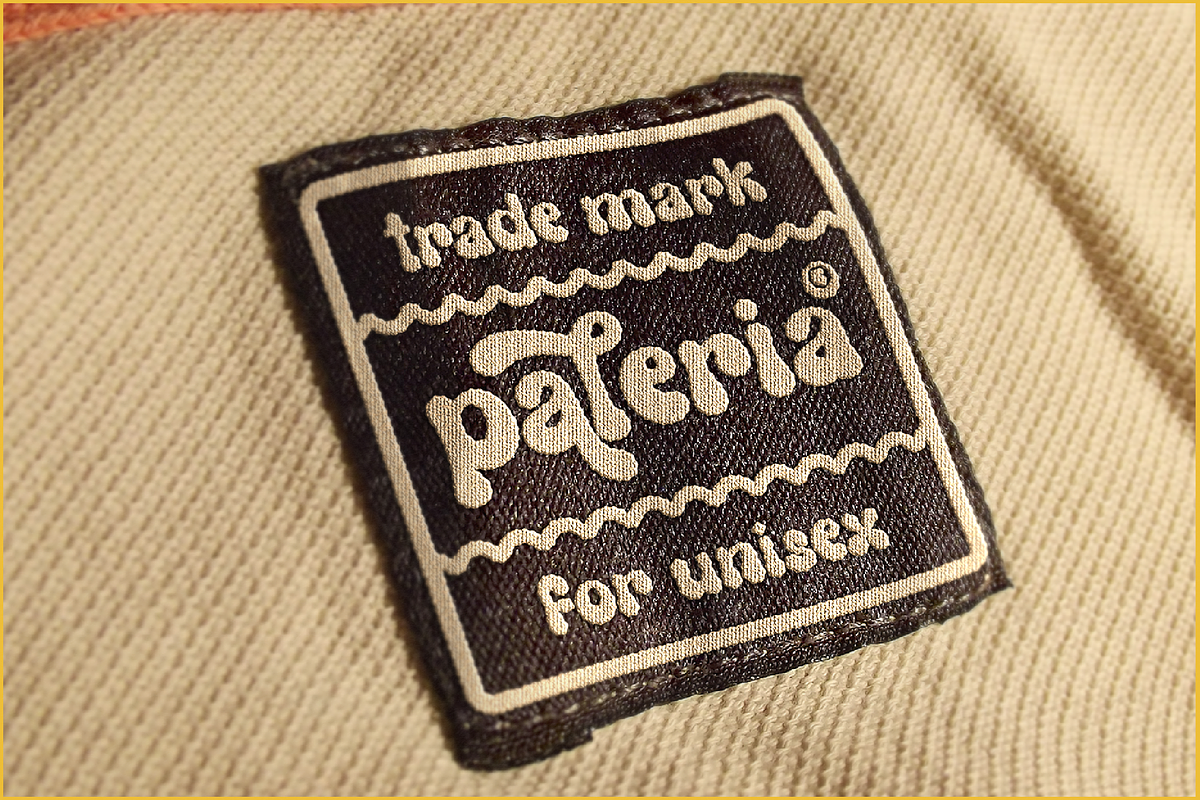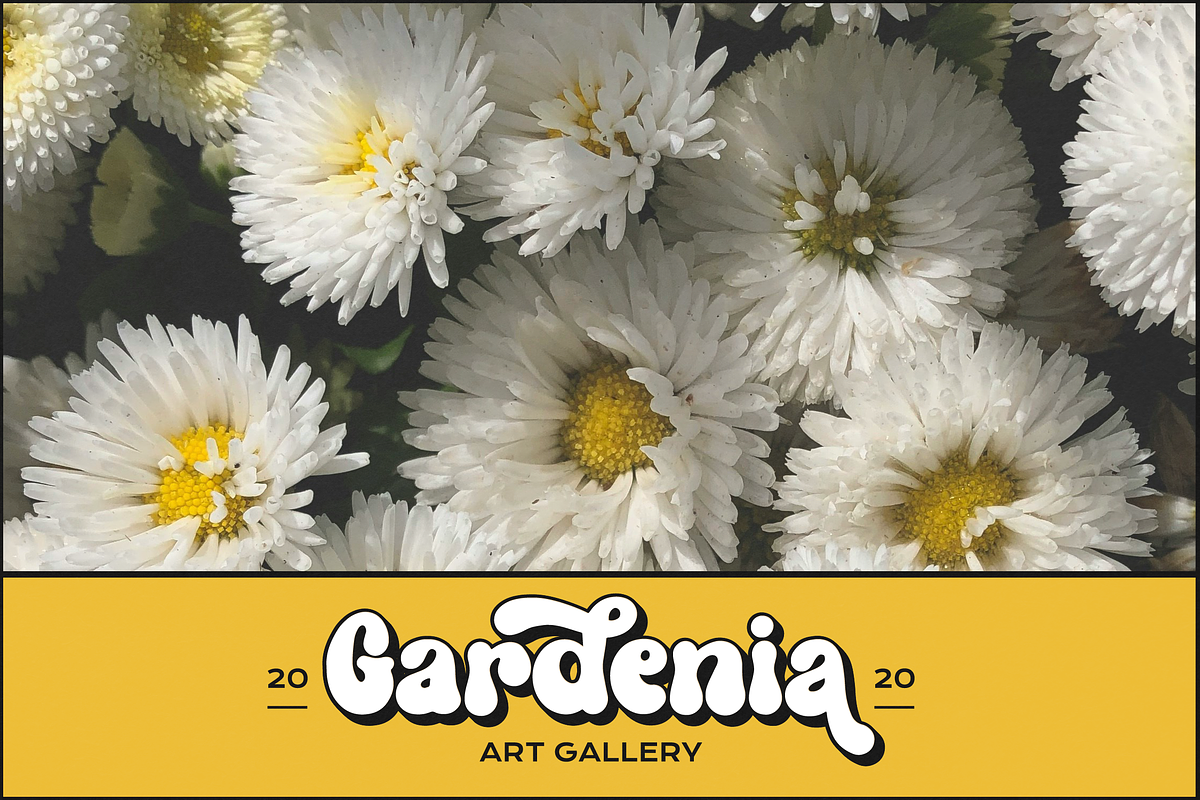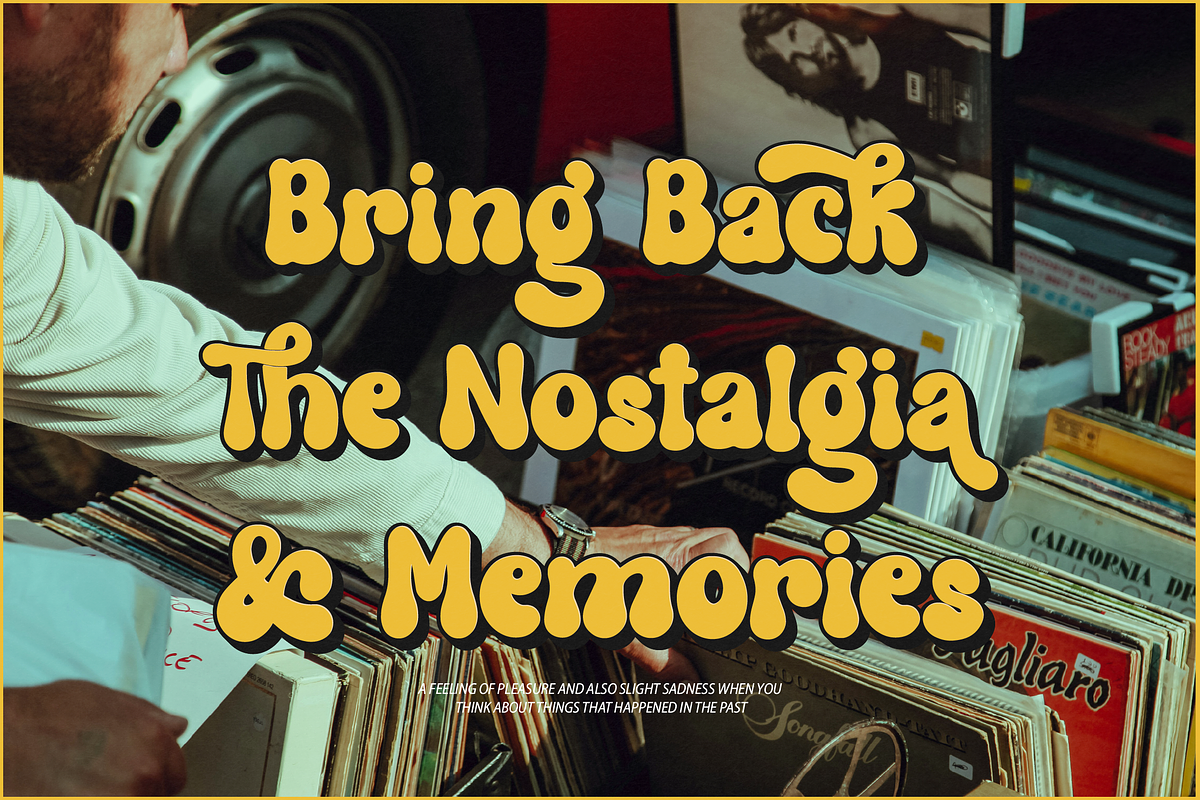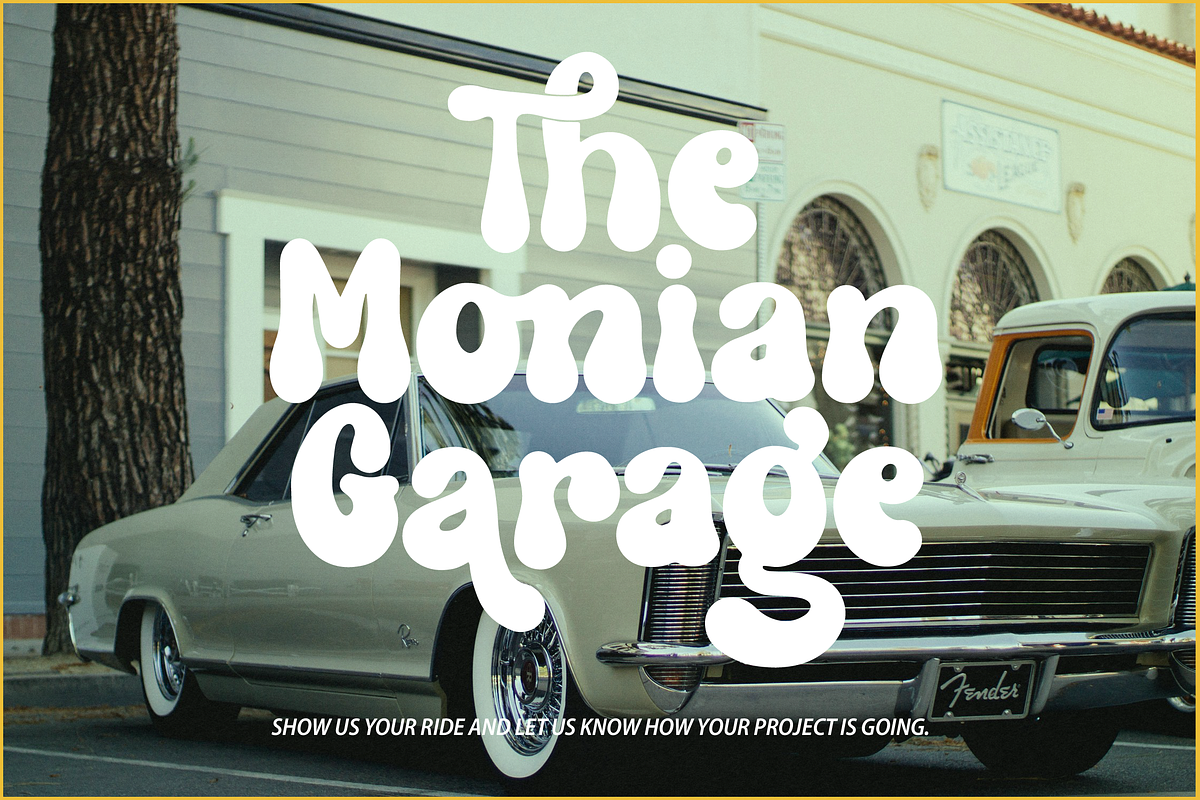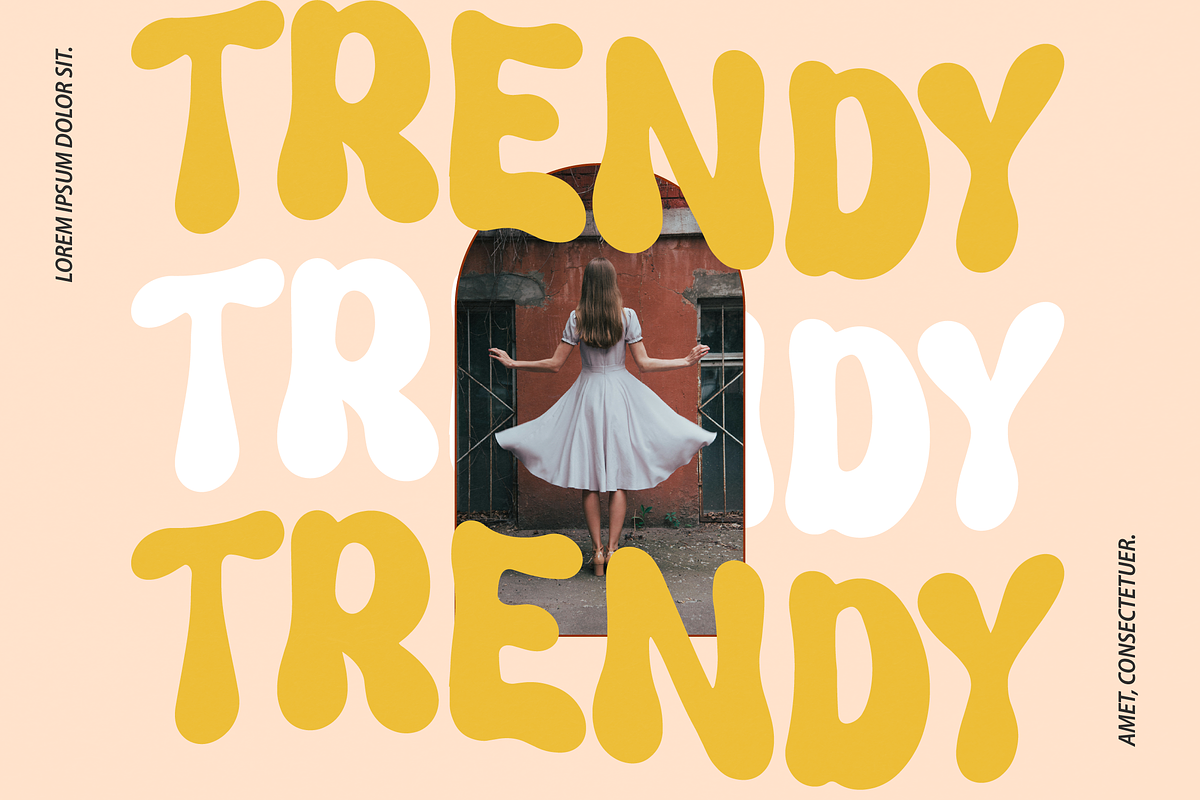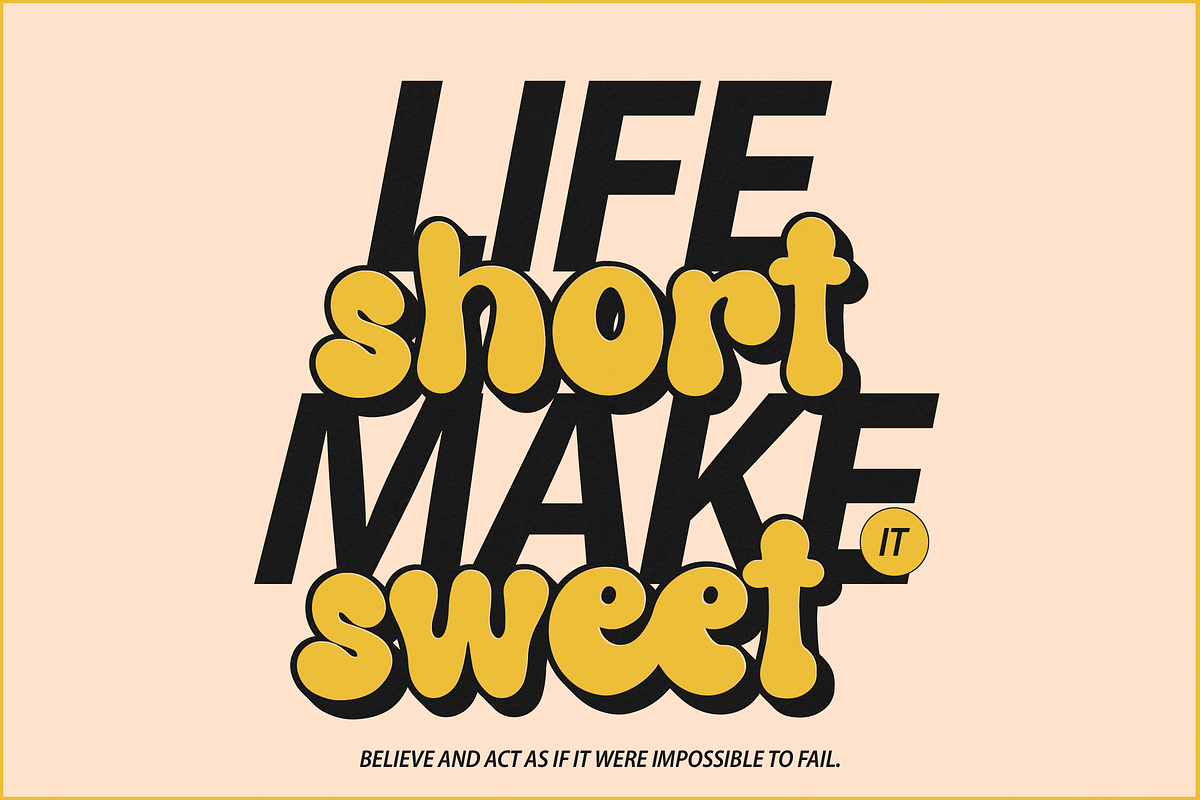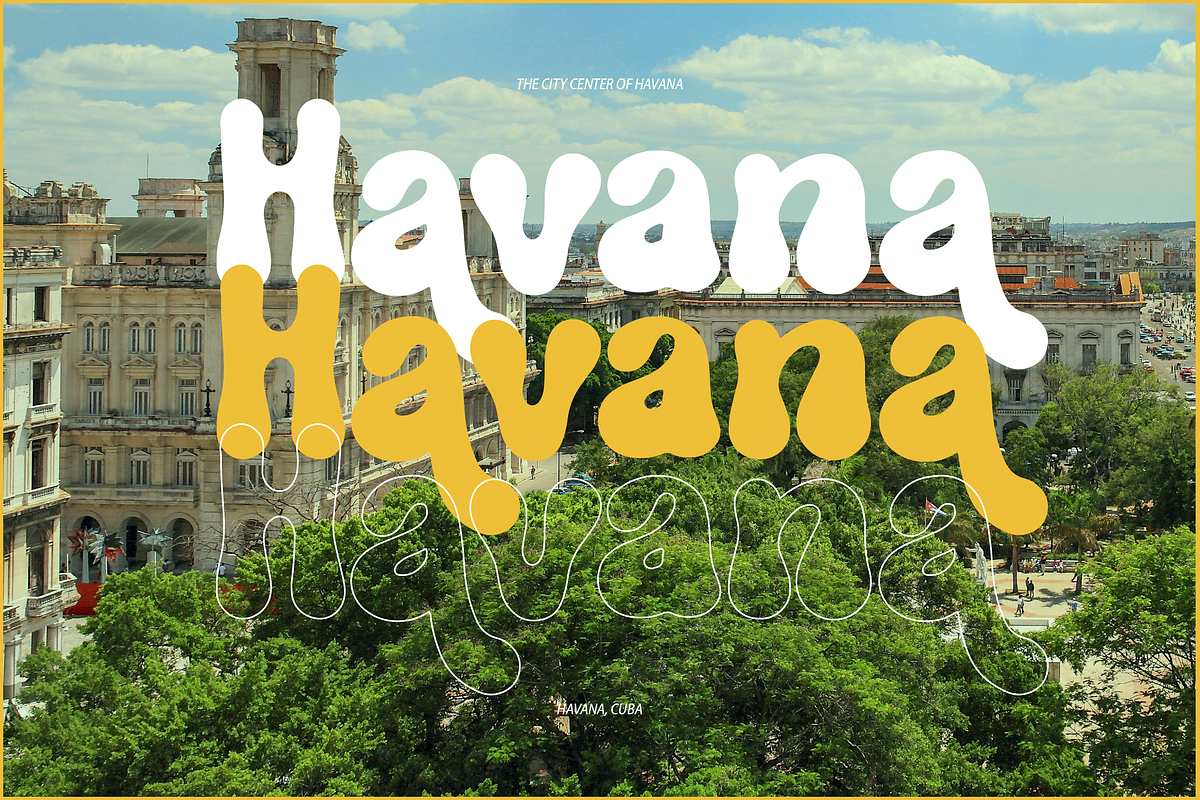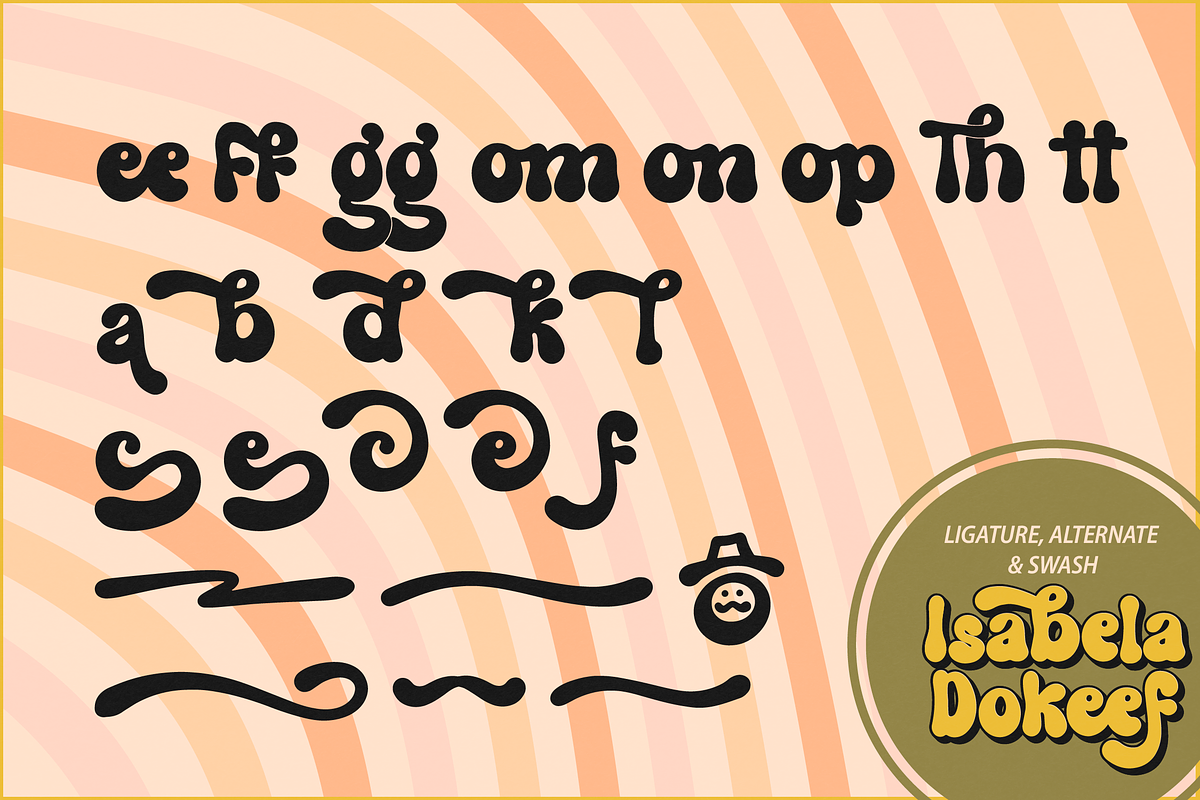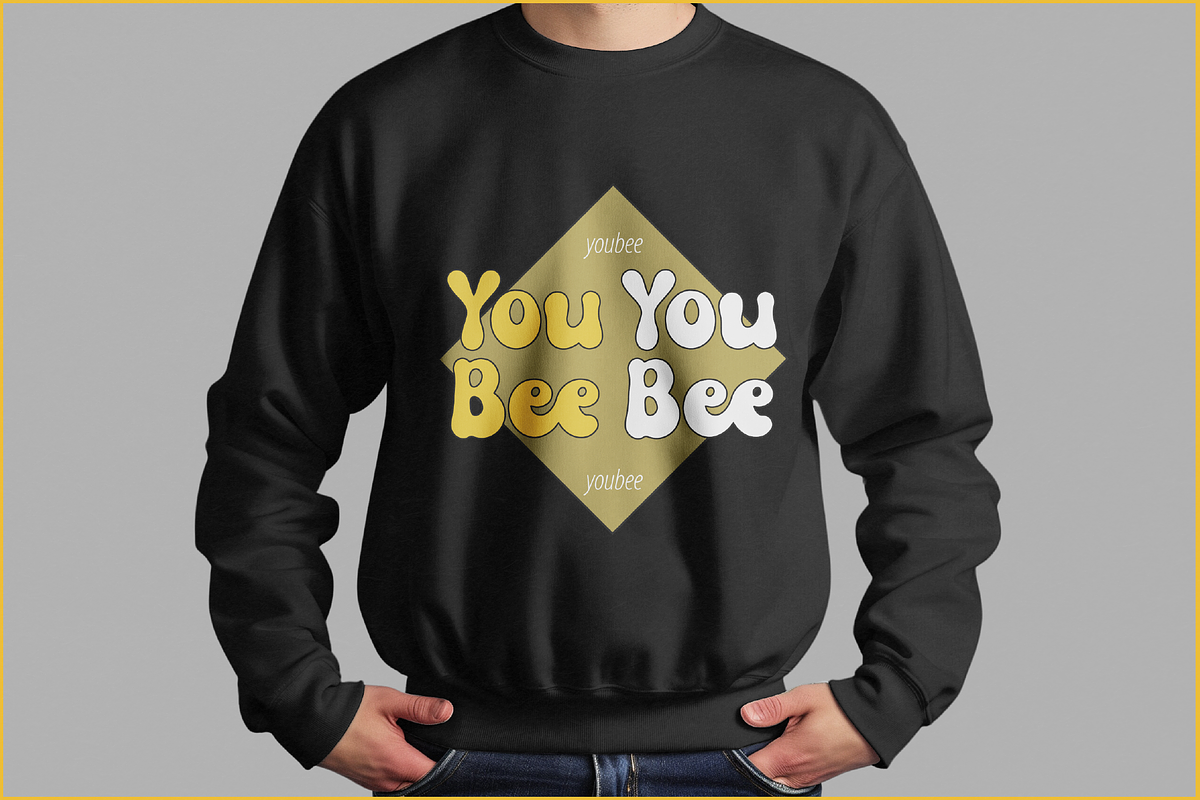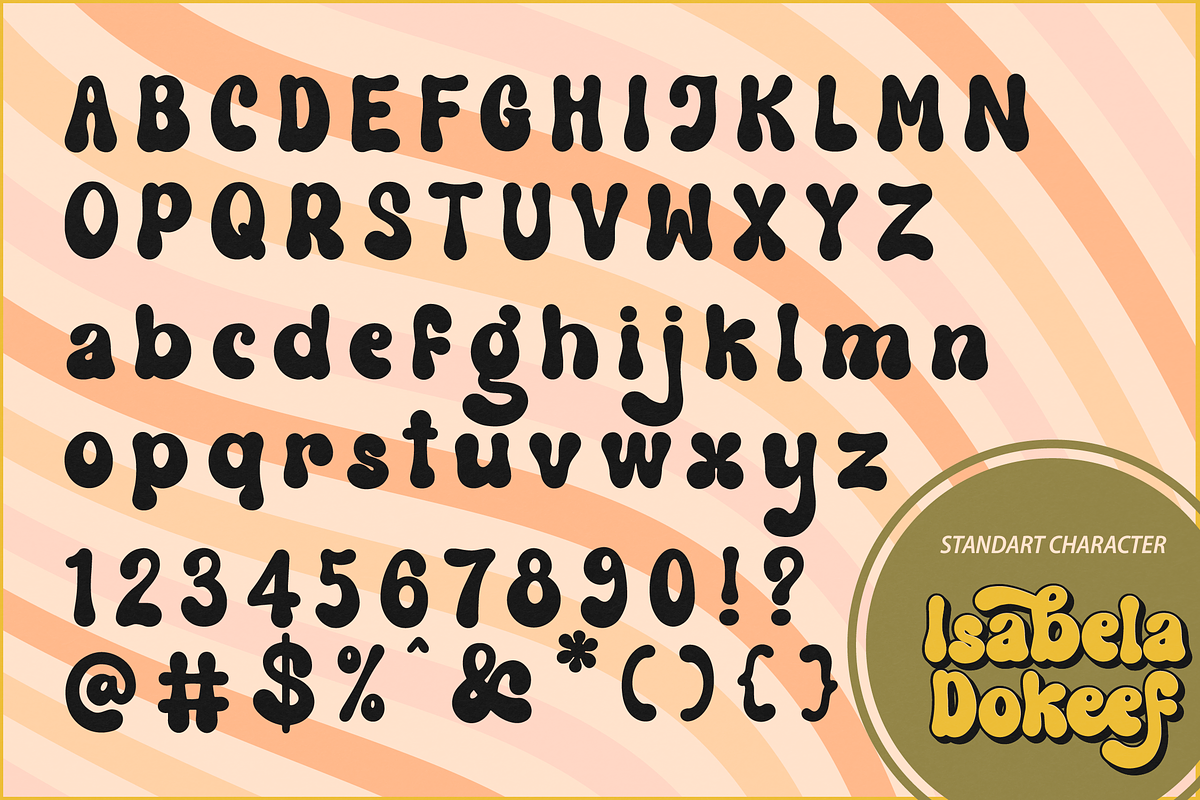
Isabela Dokeef | Retro Bold Display
Isabela Dokeef | Retro Bold Display, from Denustudios, suitable for any projects such as: logos, branding projects, homeware designs, product packaging, mugs, quotes, posters, shopping bags, t-shirts, book covers, name card, invitation cards, greeting cards, label, photography, watermark, special events, and all your other lovely projects that need a Retro Bold Display taste.